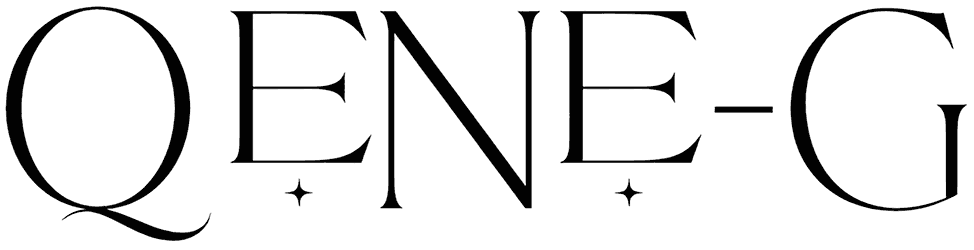
Qene-g Font
Tired of an ordinary face but still want to show off the originality of your design with a classic style? Check Qene-g, a luxury serif font with a plush vibe. From this swanky font, lowercase and numerals are unavailable, but it possesses two series of capitals, some of which have varied shapes. Qene-g is applicable for designs like logotypes, postcards, covers, and many more.f